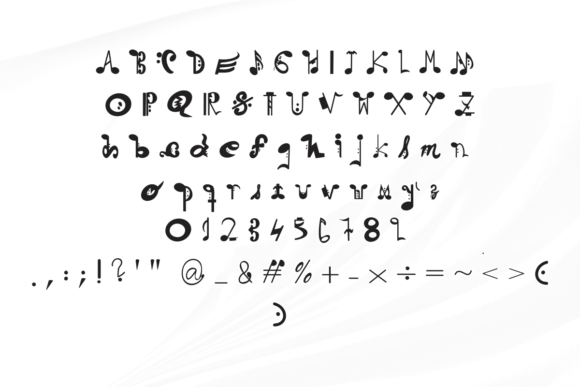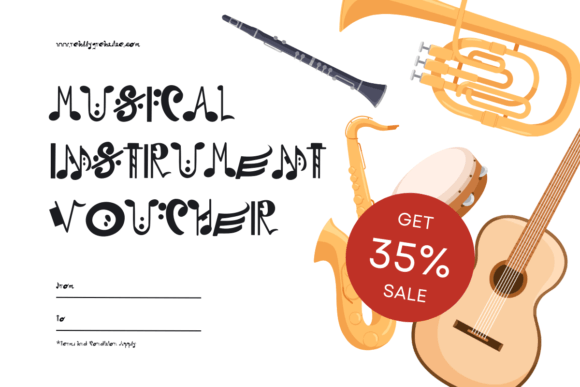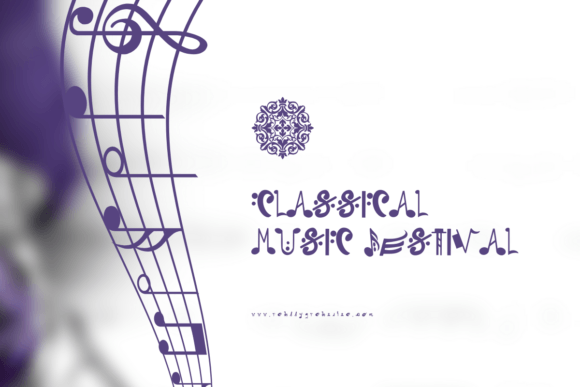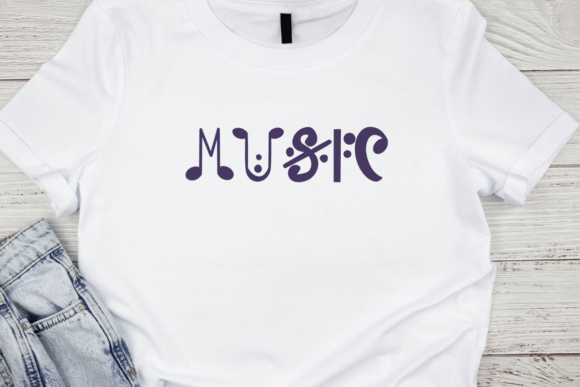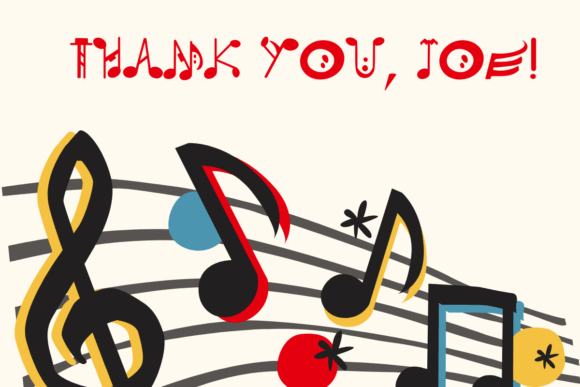
Introduction to Musical Notation Font
Do you ever find yourself lost in the world of musical notes, with a melody stuck in your head and a blank page staring back at you? This is exactly what happened to me the last time I was brainstorming ideas for a creative project. I had a vision of a beautiful, whimsical design, but I couldn’t quite put my finger on the right font to bring it to life. That’s when I stumbled upon the Musical Notation Font – a lovely and cute decorative font that has since become my go-to resource for any design project.
Key Features of Musical Notation Font
- High-quality design for musical scores and sheet music, ideal for creative projects
- Supports a wide range of musical notation elements, including notes, rests, and dynamics
Honest Review: Musical Notation Font
As a designer, I’ve had my fair share of using fonts for various creative projects. Recently, I stumbled upon the Musical Notation Font, and I must say it’s a great addition to my design resource arsenal. ✨
This font is perfect for any music-related design, from album artwork to concert posters. The high quality of the font is evident in its crisp lines and clear typography. I also appreciate the transparent background option, which makes it easy to overlay on any image or design element.
- Crisp lines and clear typography
- High quality font
- No bold or italic styles available
Overall, I’m impressed with the Musical Notation Font, and I’d definitely recommend it to fellow designers working on music-related projects. With its high quality and transparent background, it’s a great addition to any design resource library. ⚠️ While it has some limitations, the benefits far outweigh the drawbacks.
Musical Notation Font is a high-quality design resource that enables you to create stunning musical compositions in your creative projects. This versatile font is available for free download and can be easily integrated into various design platforms.
Getting the Most Out of Musical Notation Font
For optimal results, use Musical Notation Font on a transparent background to ensure that your musical compositions stand out. Experiment with different font sizes and styles to create visually appealing designs.
Musical Notation Font is ideal for:
- Music composition and notation
- Music education and theory
- Music event promotion and marketing